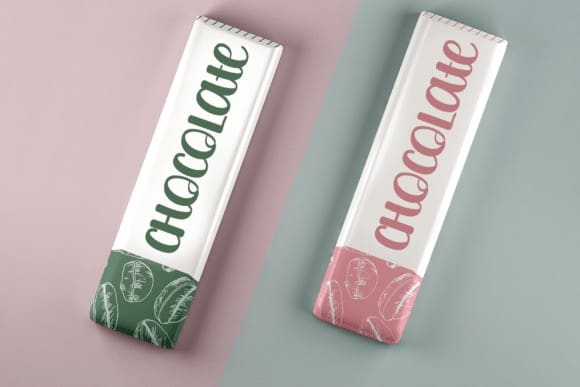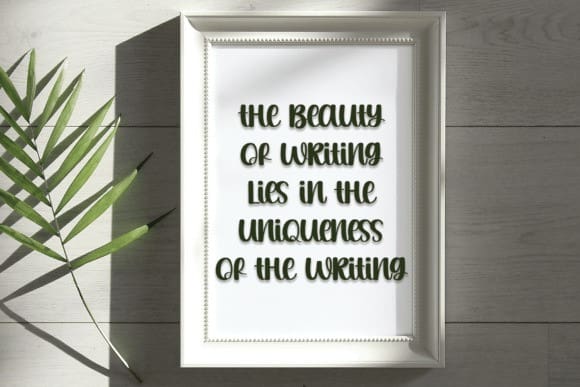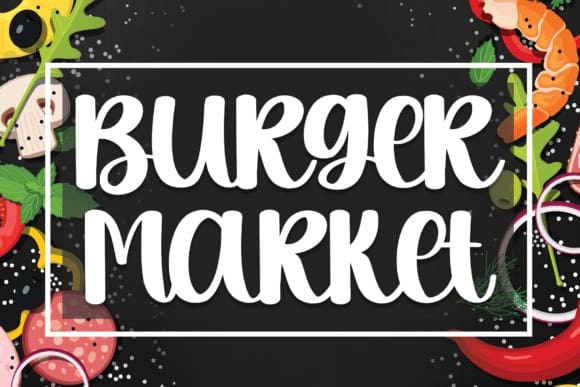
Burger Market Font
Burger Market Font is a cool and casual handwritten font. Whether you’re using it for crafts, digital design, presentations, or making greeting cards, this font has the potential to become your favorite go-to font, no matter the occasion.